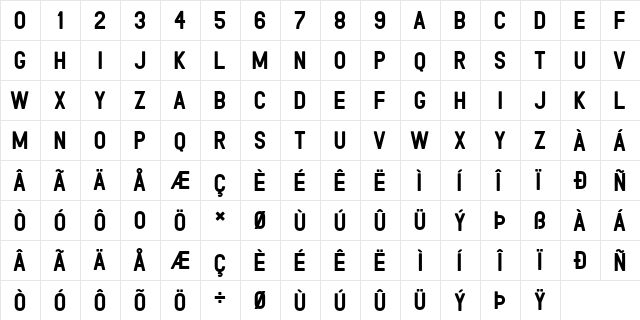
Black RoadsDEMO Black
Design Context for Black RoadsDEMO Typeface
Black RoadsDEMO is a composed and adaptable typeface that performs quietly and consistently across a wide range of design contexts.
Pro Tip: Use Black RoadsDEMO in both headline and body roles to test its range before committing to a single application.